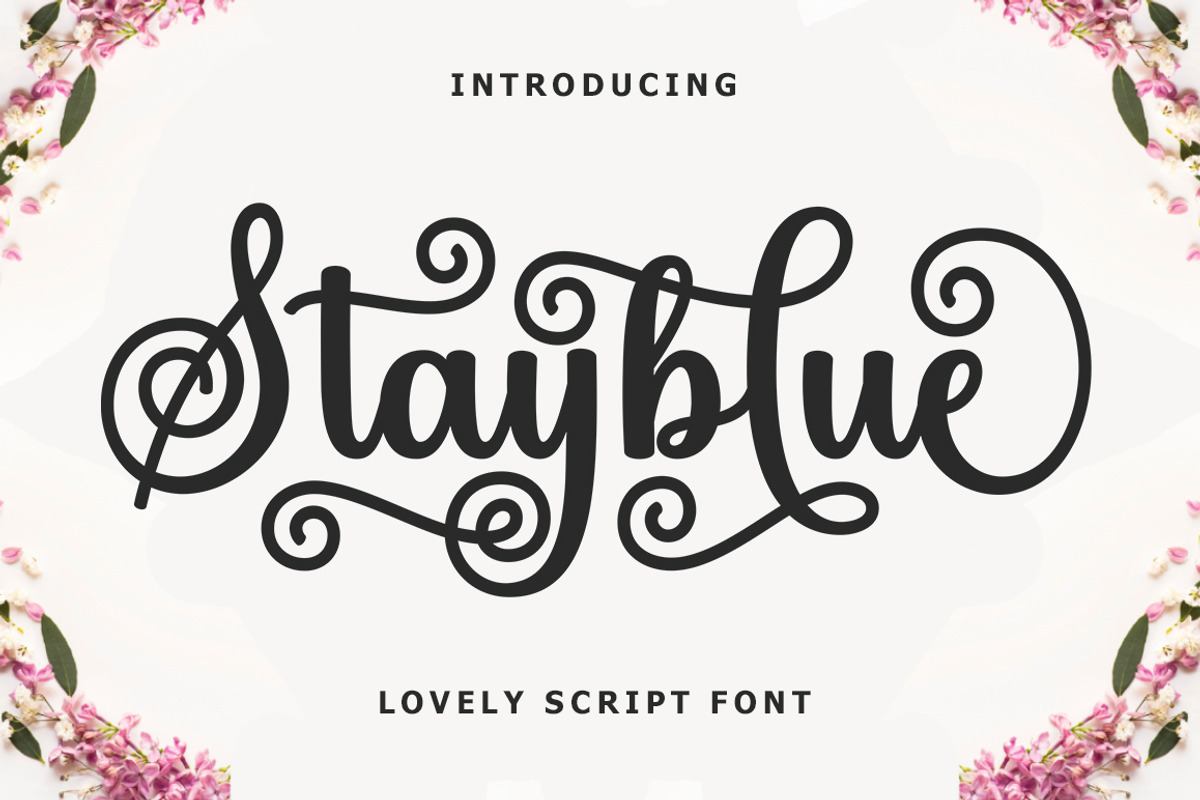
Stayblue | Script Font Free Download is a charming, elegant handwritten script typeface that brings personality and warmth to your designs. With its smooth curves and flowing lines, this font is perfect for wedding invitations, logos, branding, greeting cards, social media posts, and more. Stayblue offers a modern, sophisticated handwritten feel that can work for both casual and formal projects.
Its organic, hand-lettered style adds a personal touch to any design, while maintaining legibility and ease of use. Whether you're crafting an elegant logo or creating a beautiful invitation, Stayblue gives your typography a unique, expressive touch.